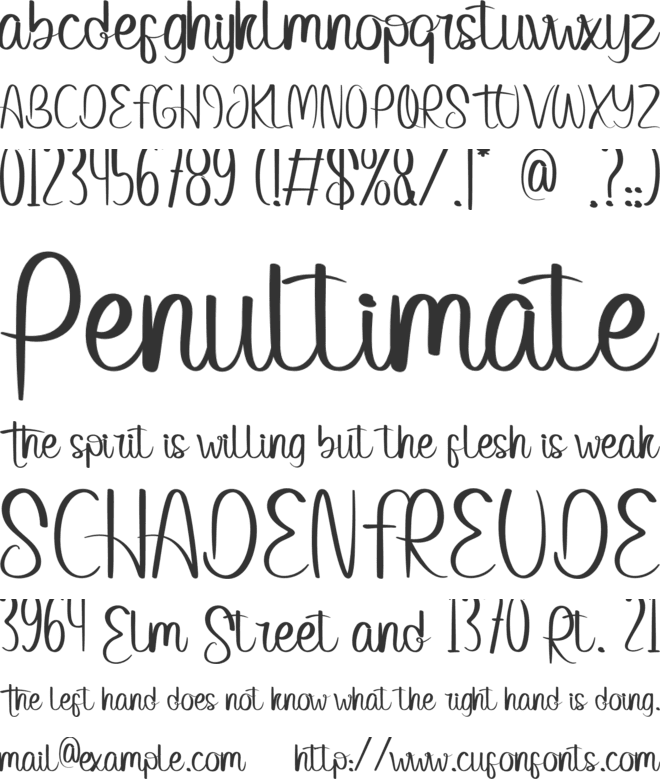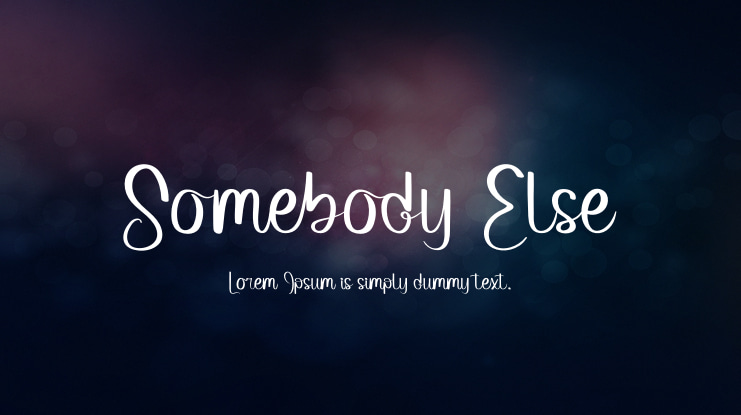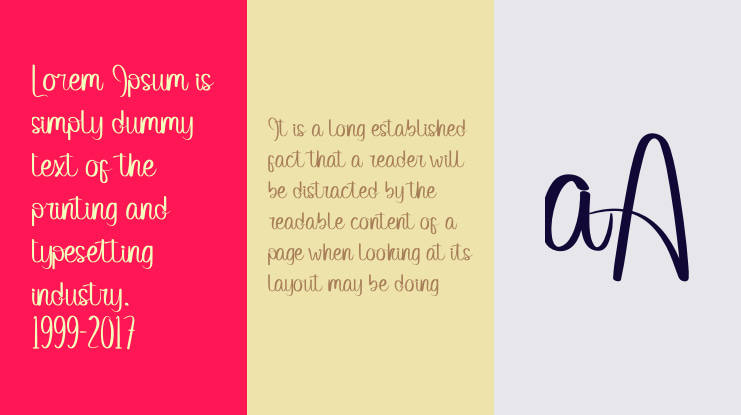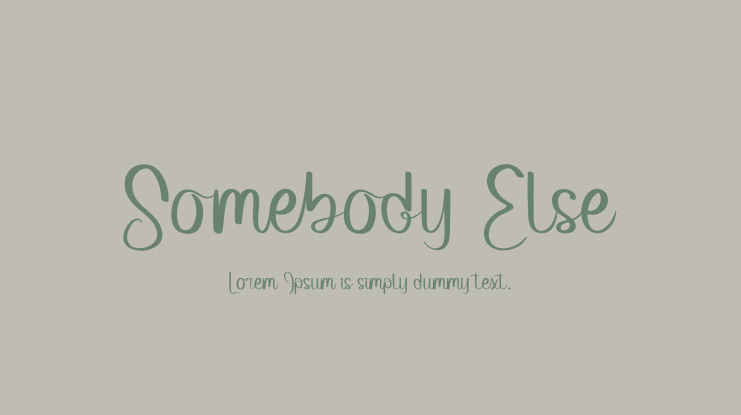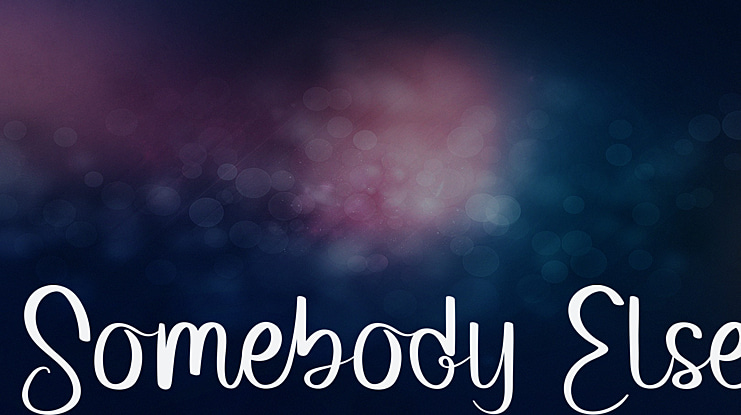
Somebody Else Font
This is a FREE Font For Commercial. Somebody Else is a sophisticated handwriting font. Somebody Else Font will be great for photo logo, professional, branding, logotype, social media post, poster, invitation, watermark, lettering and many more
Somebody Else Handwriting Font includes full set of Uppercase and Lowercase Basic Characters, Numerals and Punctuation. Also it contains ligatures and alternates characters to perfectly make natural handwriting look that add more beautiful and aesthetic fonts to perfect your extraordinary project.